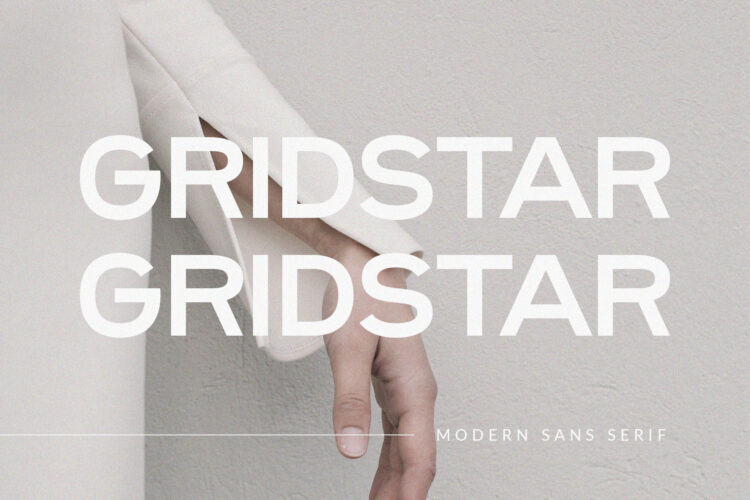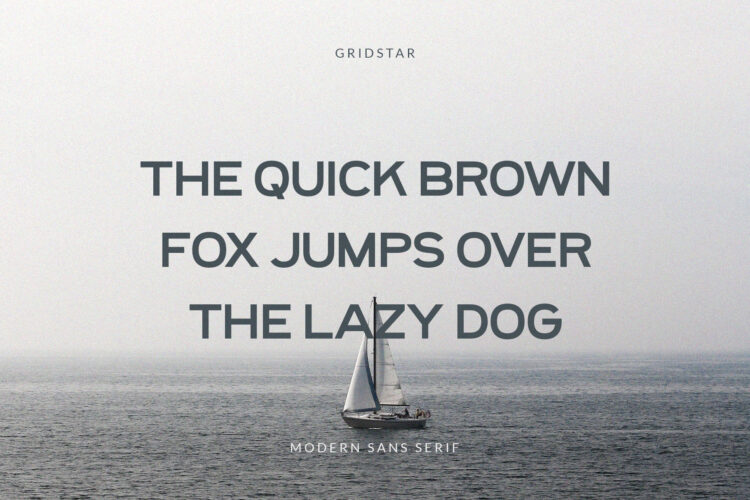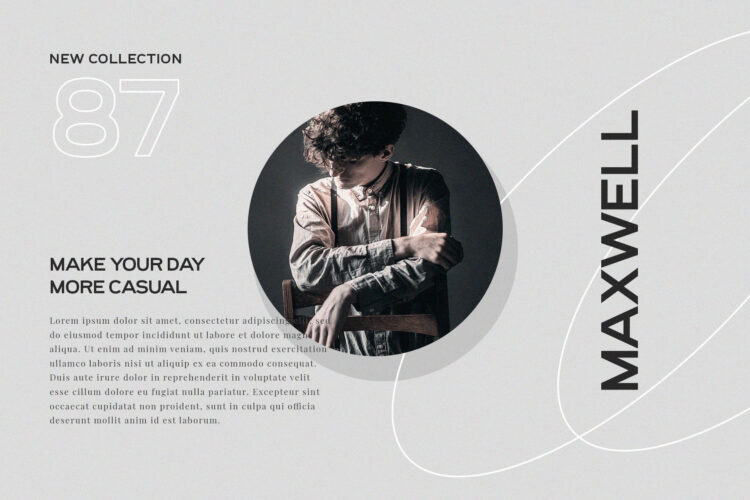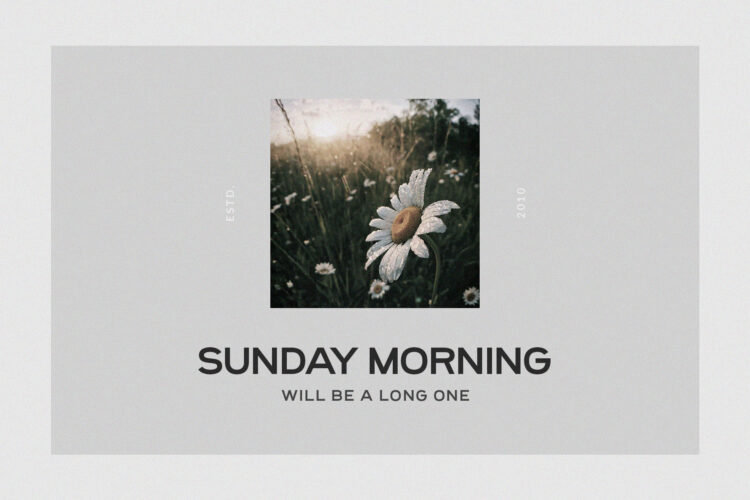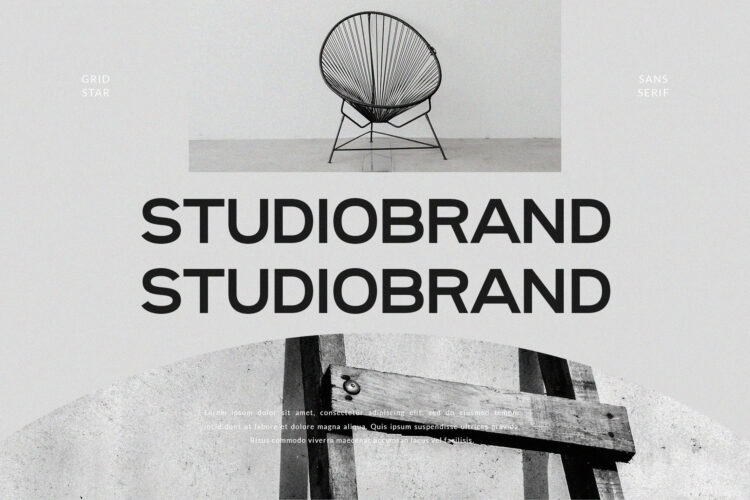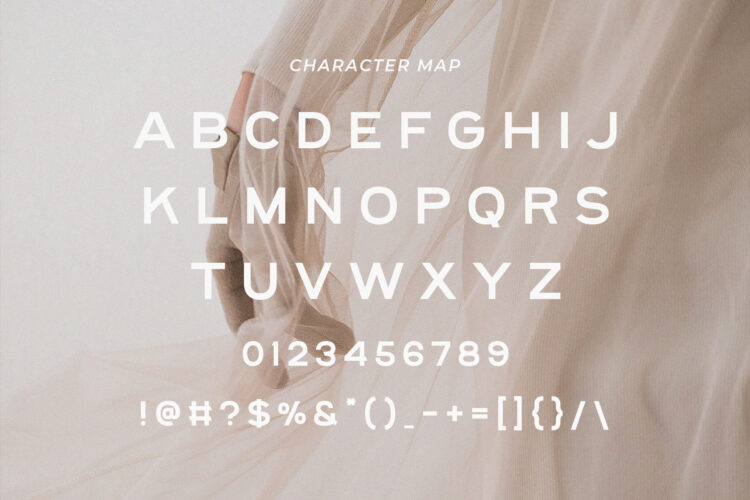
Introducing Gridstar Modern Sans Serif.
Gridstar is a modern and classy typeface, best used as a display for headings, logos, branding, magazines, product packaging and invitations. Gridstar come with clean lines and smooth curves give any project an extra touch of class.